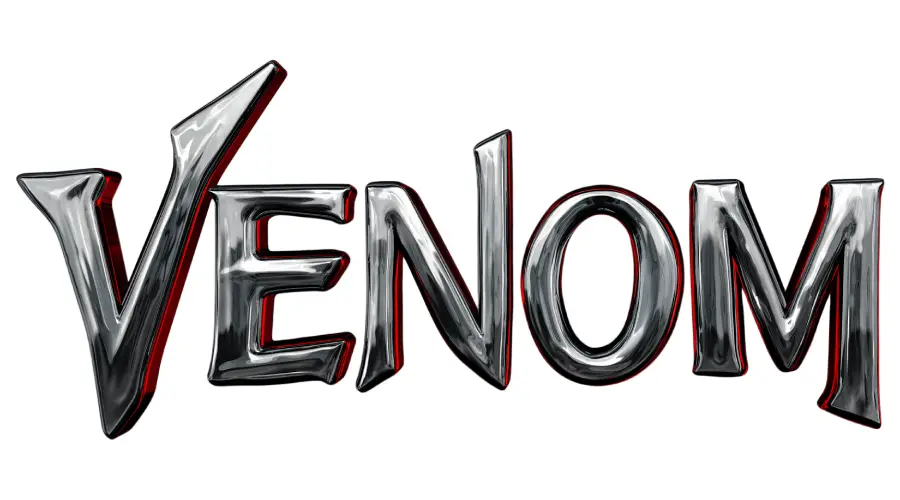
The Venom Font is inspired by the iconic typography used in the logo of the Marvel movie Venom, which follows Eddie Brock and his alien symbiote’s thrilling adventures. While the original font used in the logo was custom-made, fans and designers have identified similar fonts that capture its dark, edgy, and mysterious vibe.
Similar Fonts to Venom Font
If you’re looking to replicate the Venom logo style or create something with a similar vibe, here are the closest alternatives:
Vampire by FG Studios
This font is almost identical to the one used in the Venom logo. It features sharp, jagged edges and a gothic feel, making it perfect for horror, action, or sci-fi-themed designs.
VENOM by fluffyartstudio
Another great alternative, this font mimics the bold and aggressive style of the Venom logo. It’s ideal for creating logos, posters, or any design that requires a dark, powerful look.